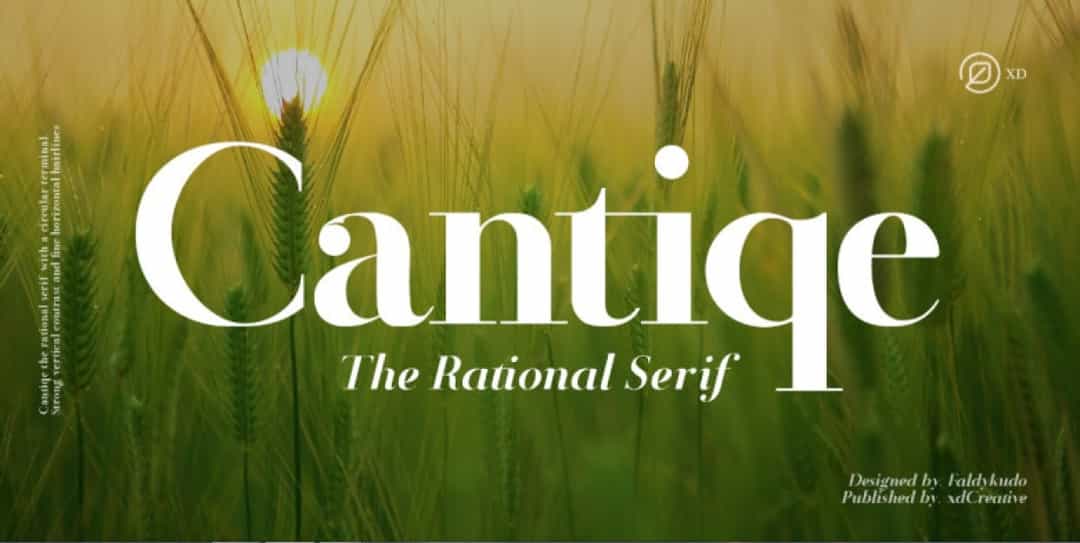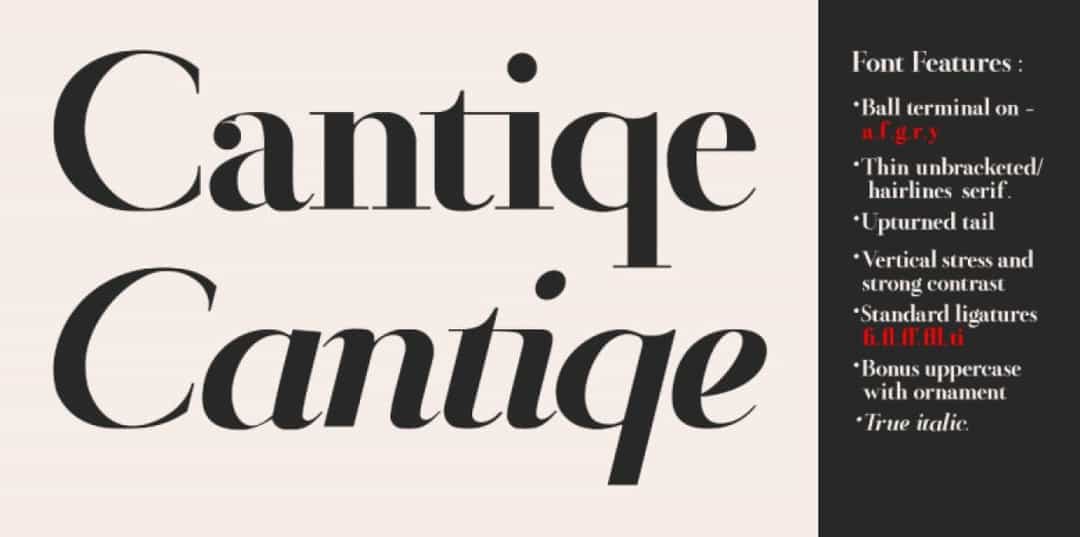
Cantiqe is an elegant rational serif typeface featuring a ball terminal with sharp vertical contrast. Additionally, there are hairlines on its horizontal sides for added beauty – making this font both versatile and gorgeous for editorial or fashion designs alike!